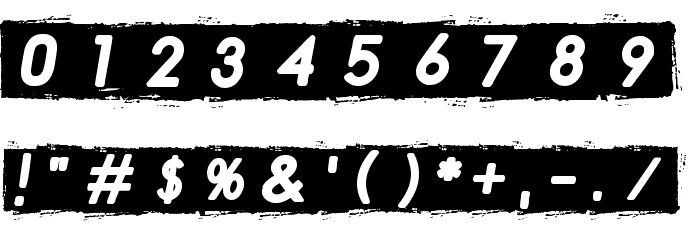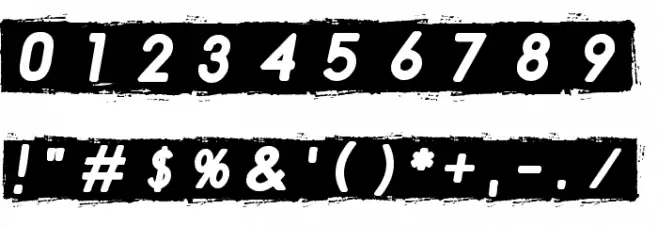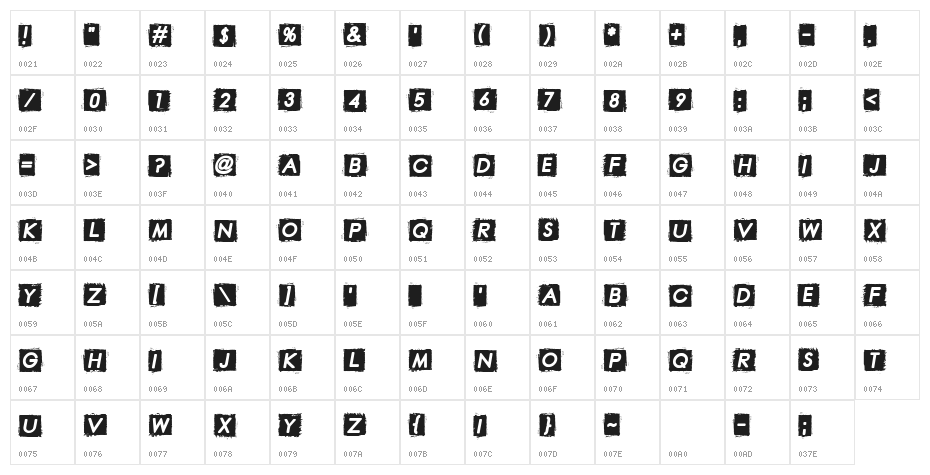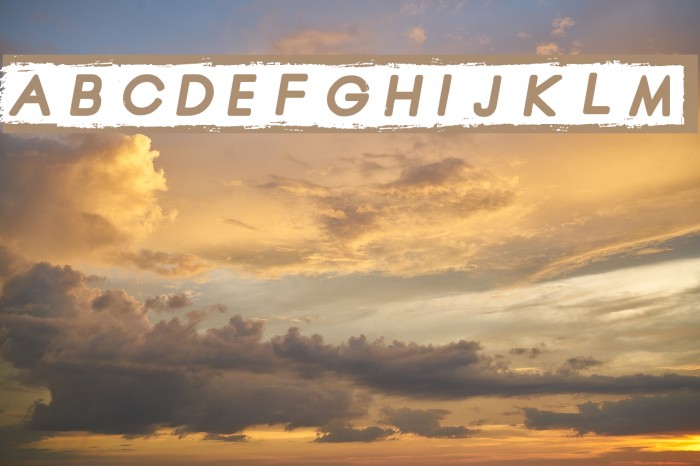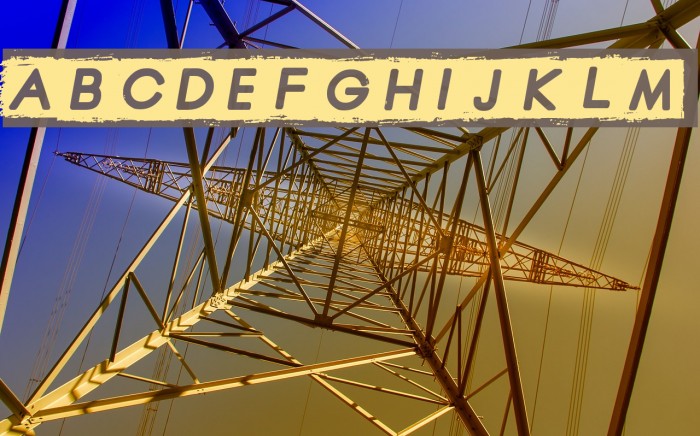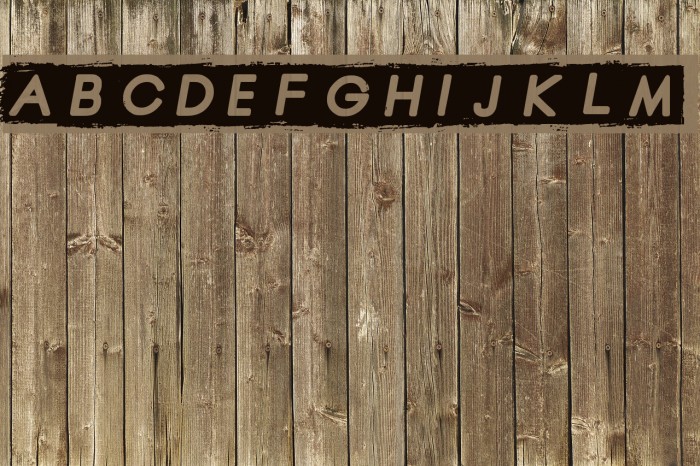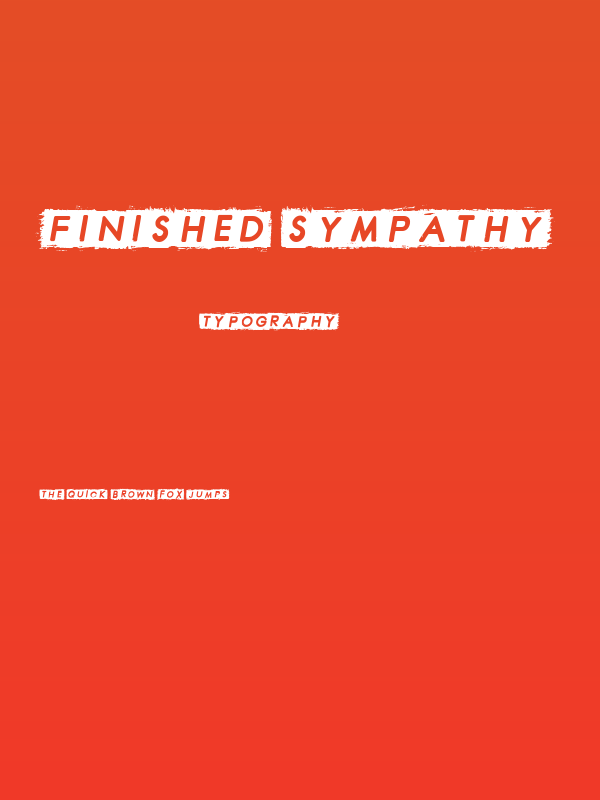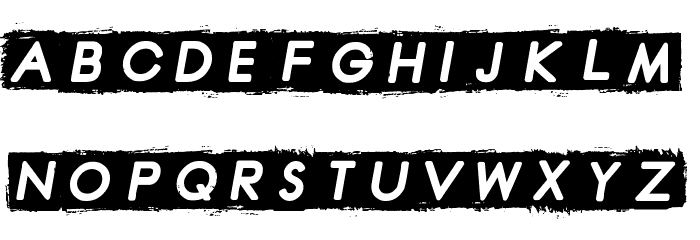
Finished Sympathy Font
Finished Sympathy Description
This font features a bold and dynamic style with a distressed, grunge-like background that adds a sense of edginess and modernity. The characters are uppercase and lowercase letters, numbers, and a variety of special symbols, all presented in a clean, sans-serif style. The contrast between the solid white characters and the rough, black background creates a striking visual impact. The font's overall appearance is both contemporary and artistic, making it suitable for projects that require a bold statement.
| Overall Style | Modern, Edgy |
| Proposed Projects | Ideal for album covers, posters, branding materials, and any design project that aims to convey a bold, edgy aesthetic. |